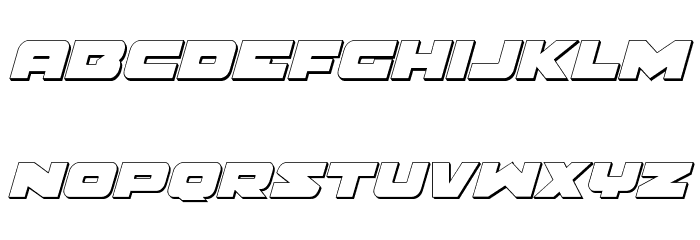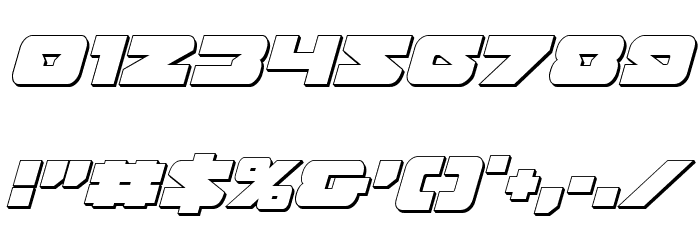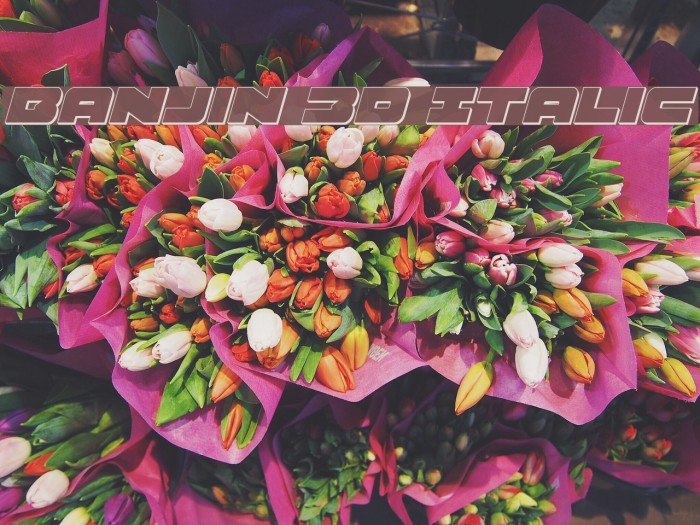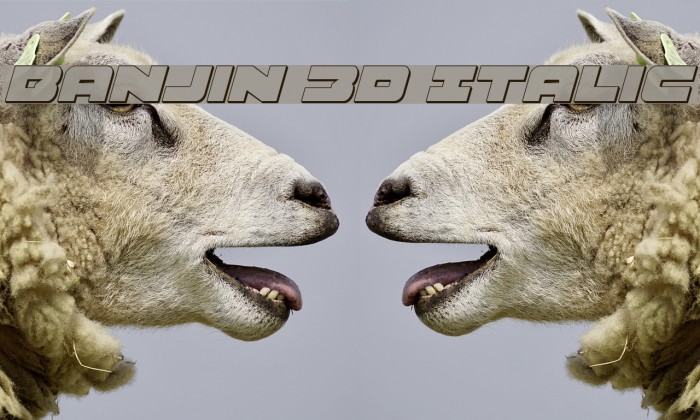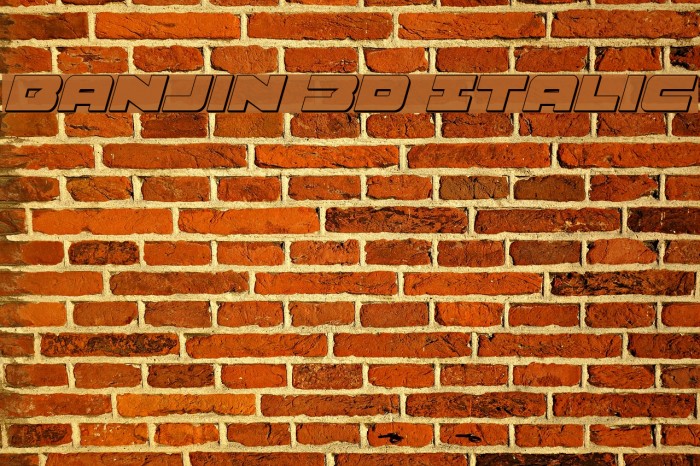
Banjin 3D Italic Font
This font features a bold, three-dimensional design with an italic slant, giving it a dynamic and futuristic appearance. The characters are outlined, creating a strong visual impact with a sense of depth. The geometric shapes and sharp angles contribute to its modern aesthetic, making it stand out in any design. The uppercase and lowercase letters maintain a consistent style, with numbers and special characters following the same bold, outlined format. This font is ideal for projects that require a striking and contemporary look.
A bold, 3D italic font with a modern, geometric style.
- Proposed Projects: Ideal for futuristic designs, tech branding, video game titles, and eye-catching posters.